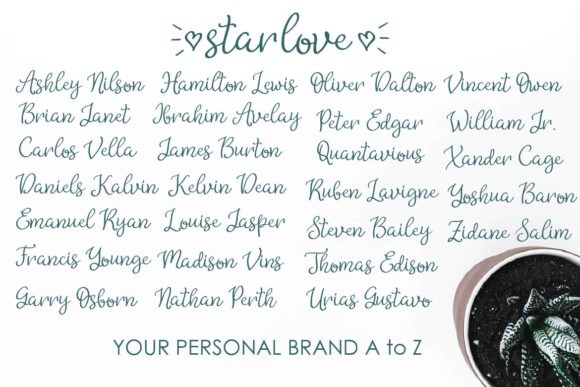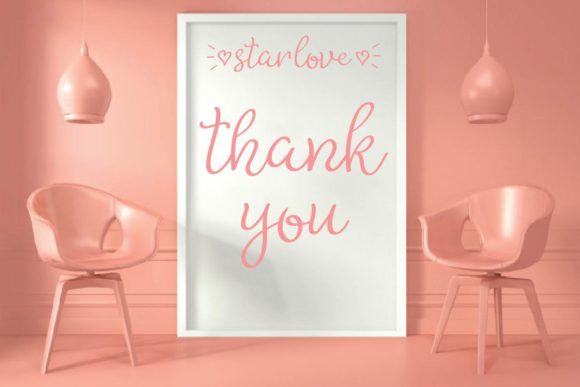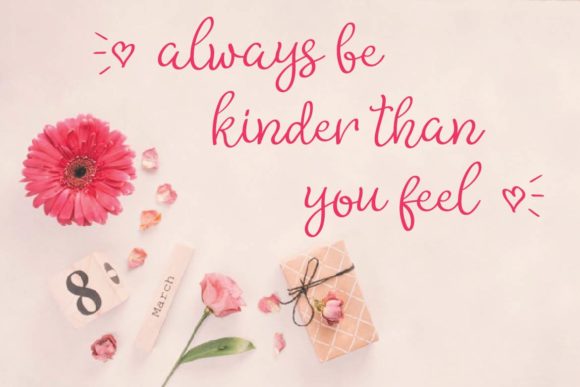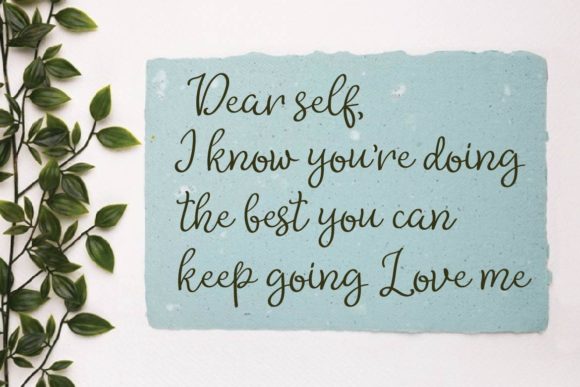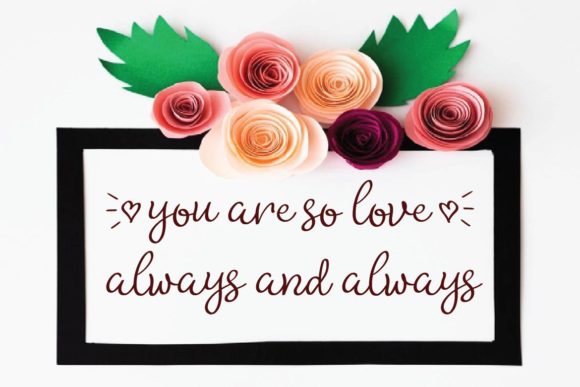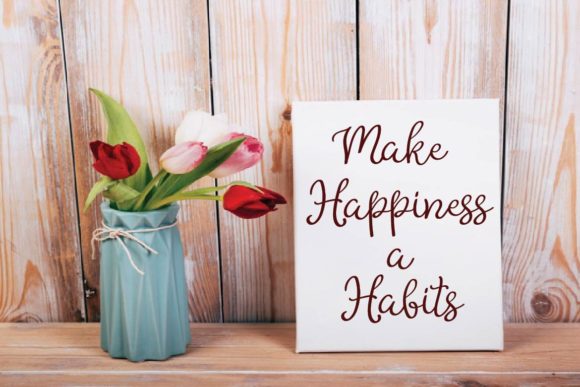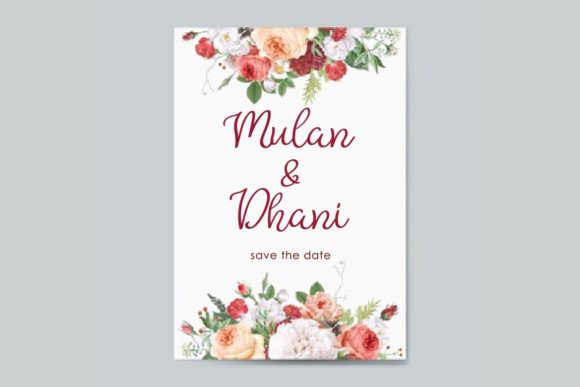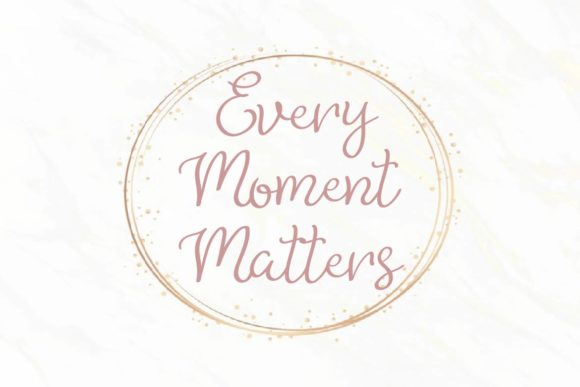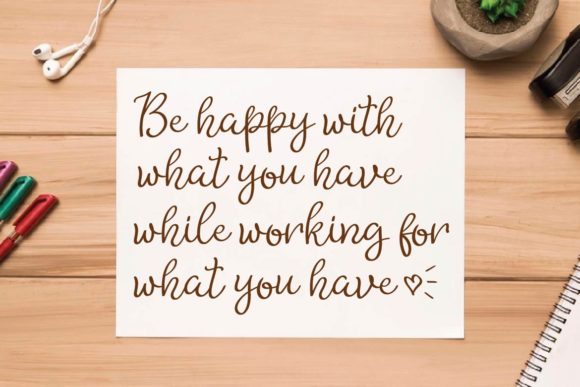
Star Love Font
About Star Love Font
Star Love is a romantic, and sweet handwritten font. Clean and a little bit quirky, this font is the perfect fit for all of your logos, branding, social media, and crafty DIY projects.